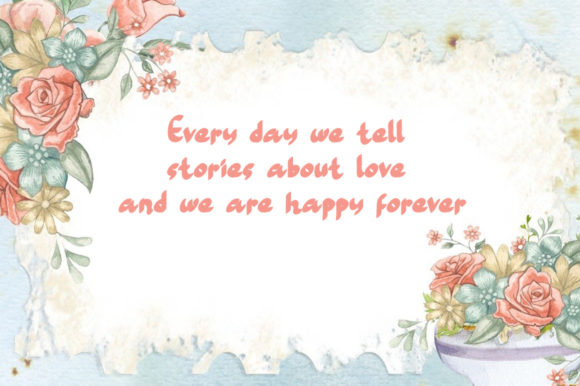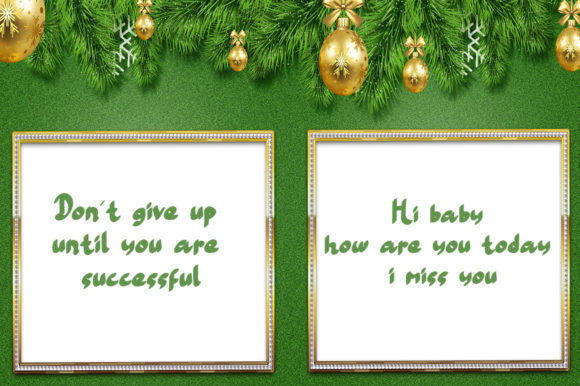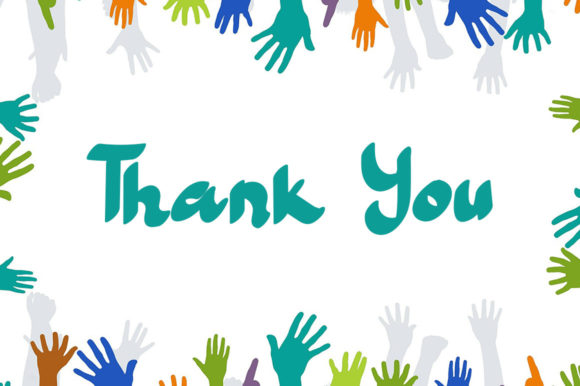
Introduction to Smart Boys Font
As designers, we’ve all been there – staring at a blank page, trying to come up with the perfect font to match our creative vision. The search can be overwhelming, but what if I told you there’s a font that can bring your ideas to life with its high-quality, handwritten charm?
Enter the Smart Boys Font, a chic paint-brushed handwritten font that’s perfect for adding a touch of whimsy to your design projects. With its delicate swashes and unique style, this font is a design resource that’s sure to elevate your creative project from ordinary to extraordinary.
Whether you’re working on a stationery design, letterhead, or title, the Smart Boys Font is a valuable addition to any designer’s toolkit. And the best part? It’s available for free download, making it an accessible design resource for designers of all levels.
Key Features of Smart Boys Font
- High-quality design for creative projects, perfect for illustrations, graphics, and digital art.
- Unique characteristics include a bold, playful style, and a wide range of glyphs, making it ideal for creative projects.
- Designed to be highly legible, even at small font sizes, making it perfect for use in digital design, print media, and more.
Honest Review: Smart Boys Font
I recently had the chance to work with the Smart Boys Font and I must say it’s a great addition to my design resources. This high-quality font is perfect for any creative project that requires a fun and playful touch.
- ✨ The font is incredibly versatile and can be used for a wide range of designs, from kids’ party invitations to social media graphics.
- ✨ The transparent background makes it easy to layer with other design elements and create a cohesive look.
- ⚠️ The font may not be suitable for professional or corporate designs, as it’s a bit too playful for that audience.
Overall, I’m really impressed with the Smart Boys Font and I think it’s a great addition to any designer’s toolkit. It’s a fun and creative resource that’s perfect for a wide range of projects.
How to Use Smart Boys Font
The Smart Boys Font is a high-quality design resource ideal for creative projects. It is available for free download and offers a transparent background, making it versatile for various design applications.
Tips for Getting the Most Out of Smart Boys Font
– Experiment with different font sizes and styles to create visually appealing designs.
– Combine the Smart Boys Font with other design elements for a unique look.
– Use the transparent background feature to create stunning graphics.
– Brochures and flyers
– Business cards and logos
– Web design and development projects
Alternatives to Smart Boys Font
Does the Smart Boys Font have a transparent background?
Yes, the Smart Boys Font has a transparent background, making it easy to use in design projects that require a clear and transparent design element. The font’s transparent background also allows you to layer it over other design elements, creating a unique and creative visual effect.